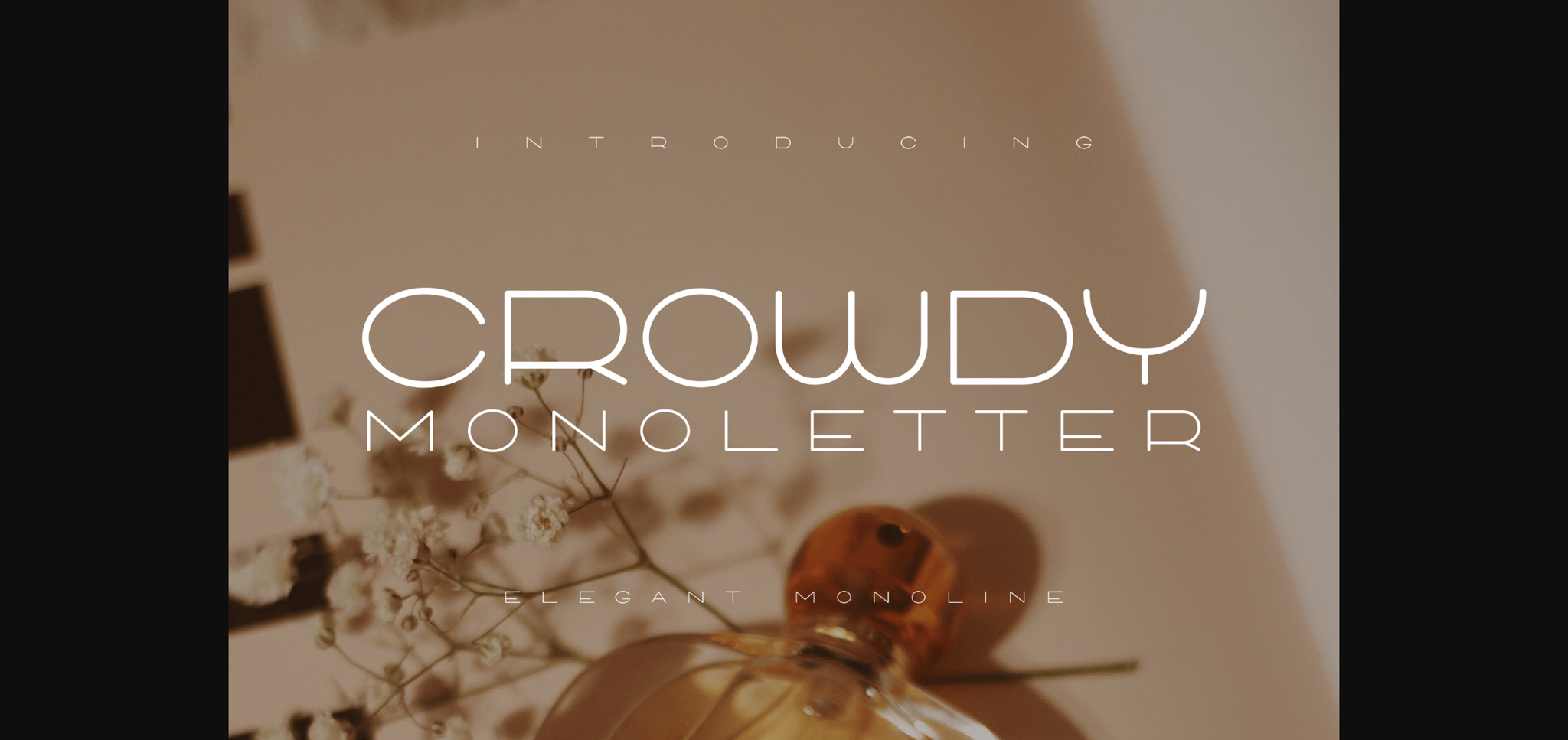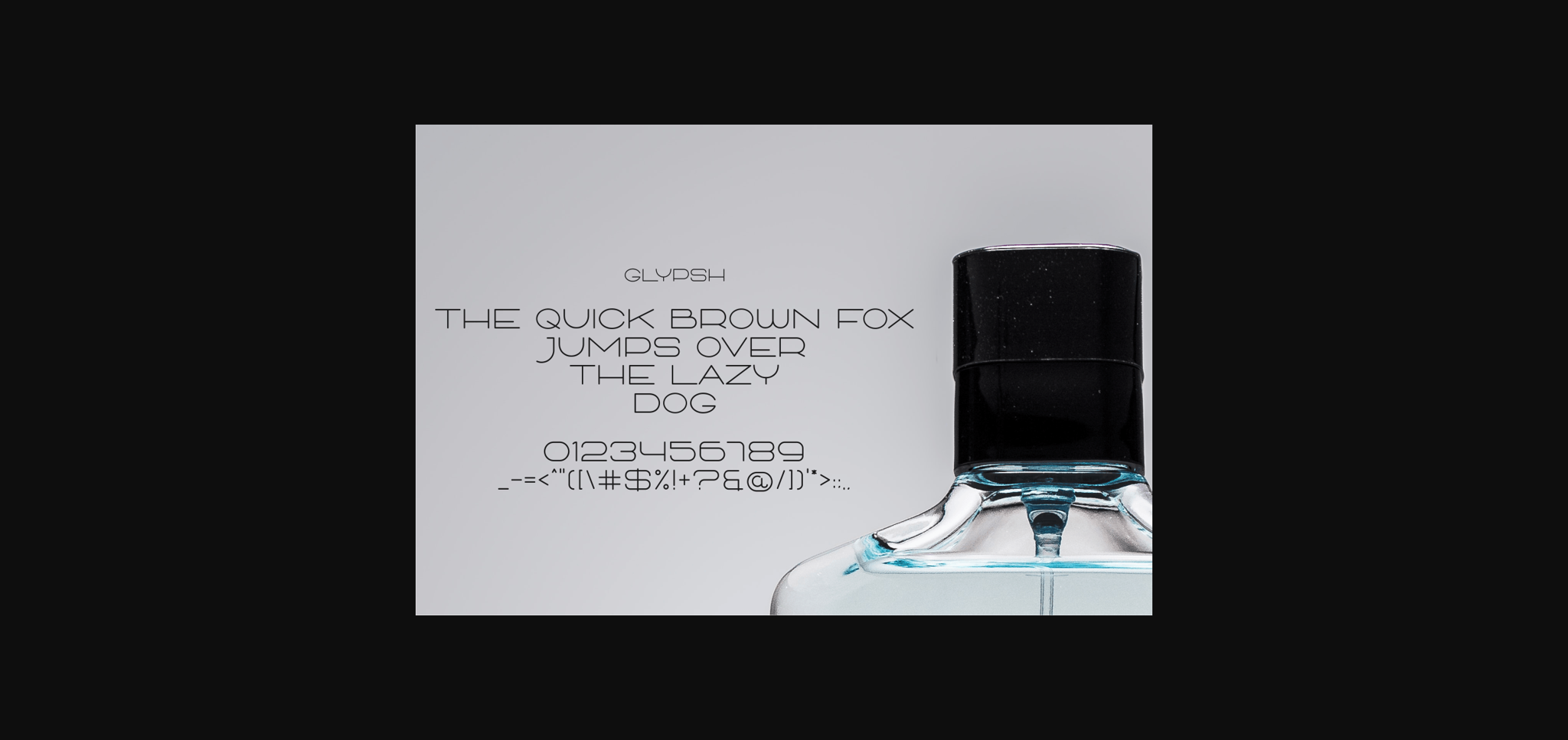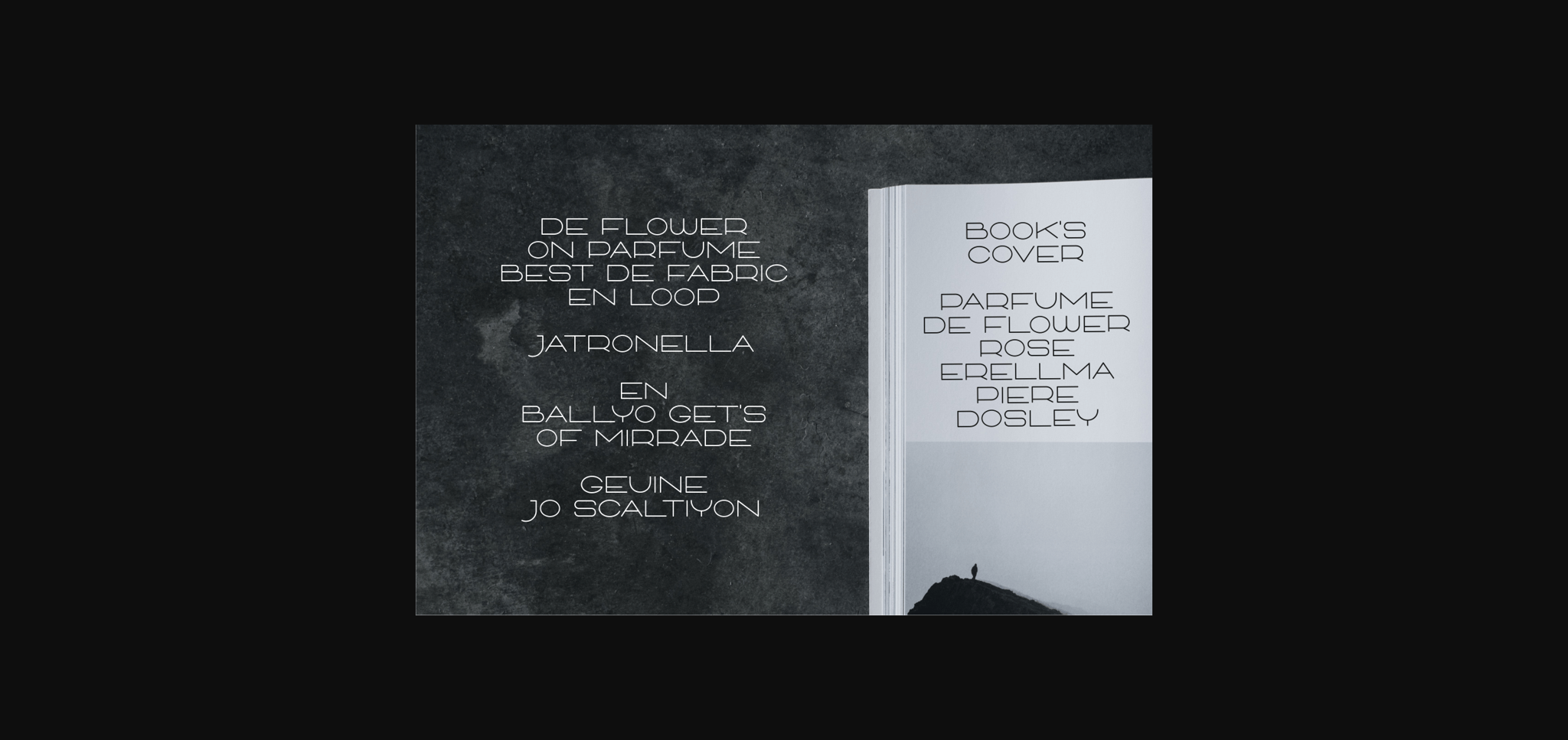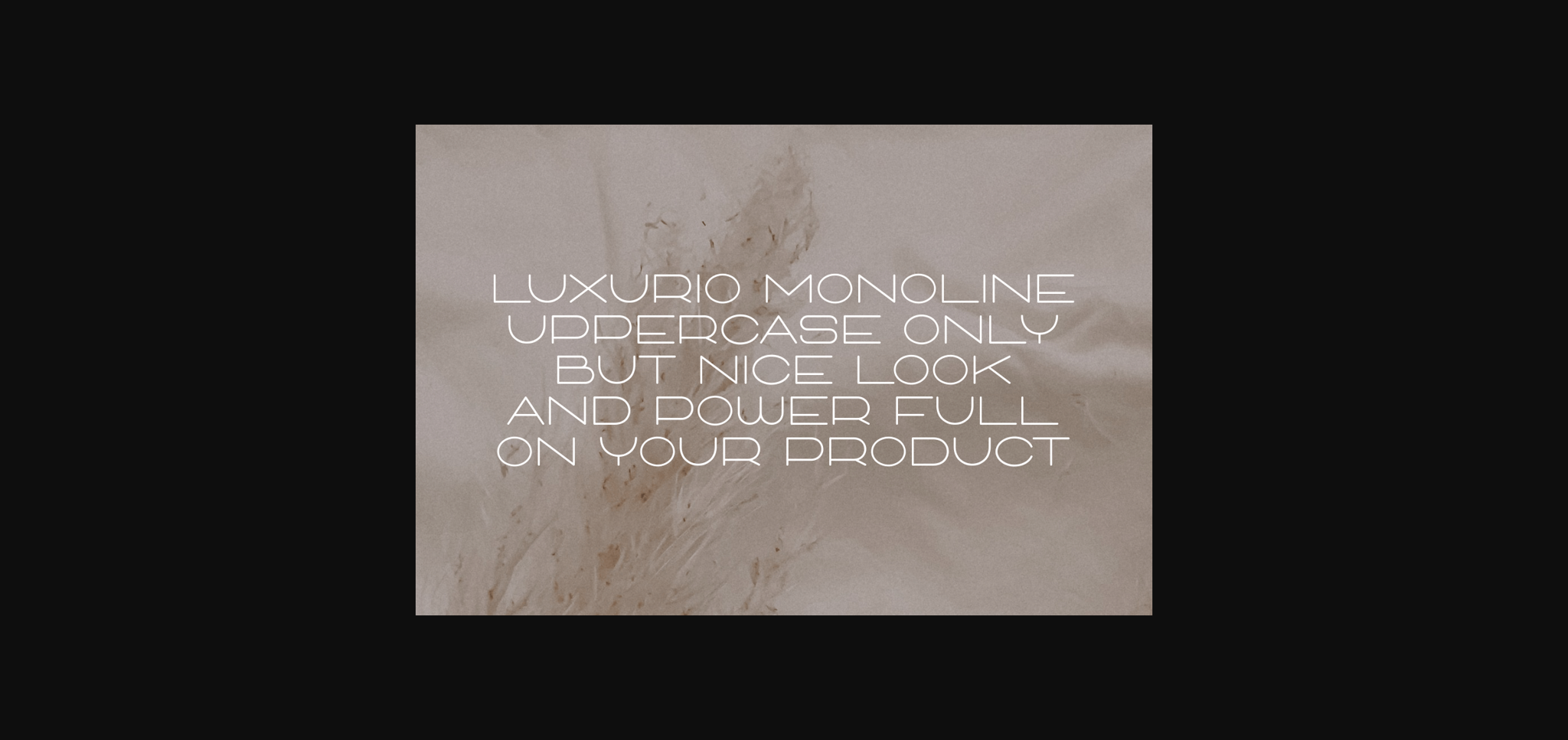
Crowdy Monoletter Font
About Crowdy Monoletter Font
Crowdy Monoletter is a neat and stylish sans serif font. Its natural and fresh look is perfect for creating elegant, classy designs.